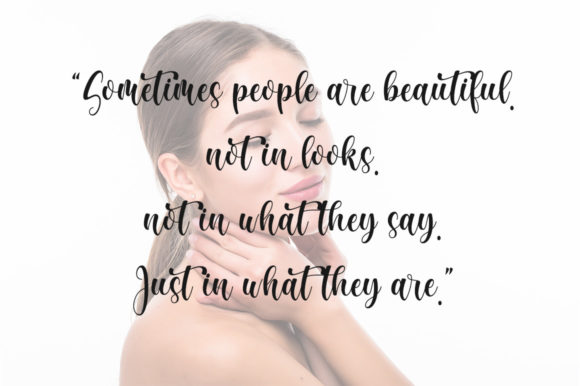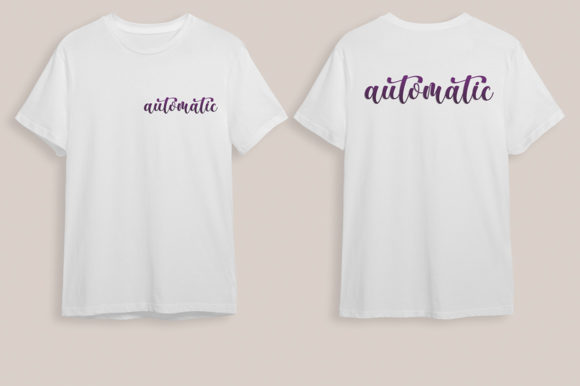
Automatic Font
db-ku.com - Script & Handwritten -- Automatic is a lovely and timeless handwritten font. It is the best choice for creating eye catching logos, branding and quotes. Every letter has a unique and beautiful touch, which will make your design come alive!